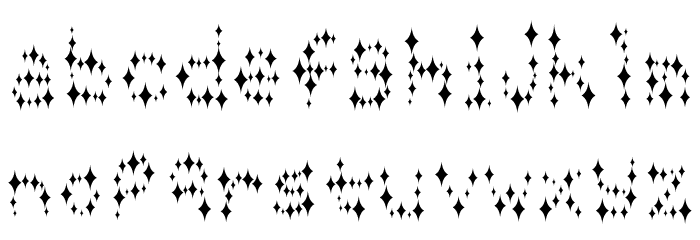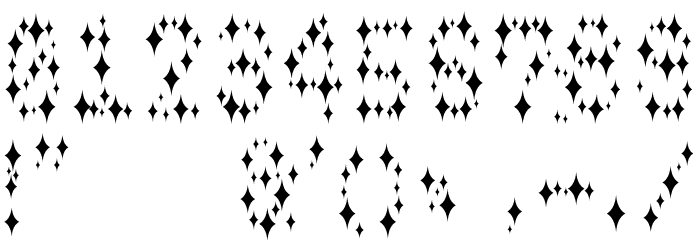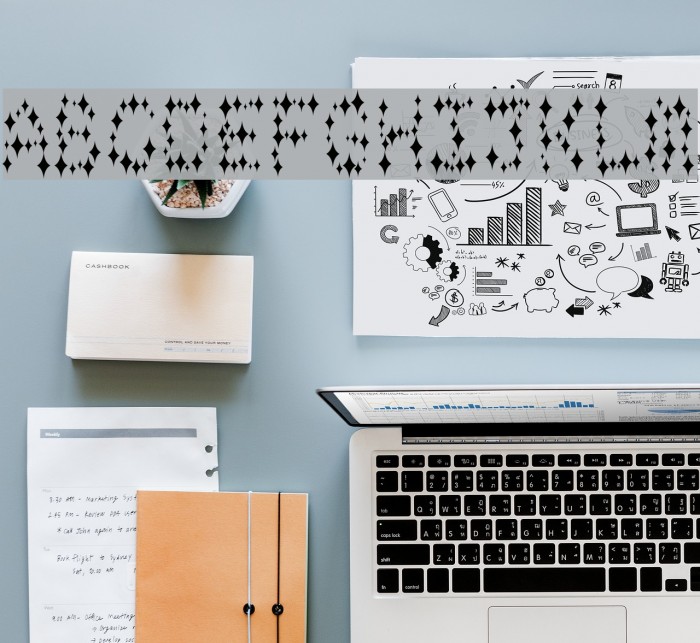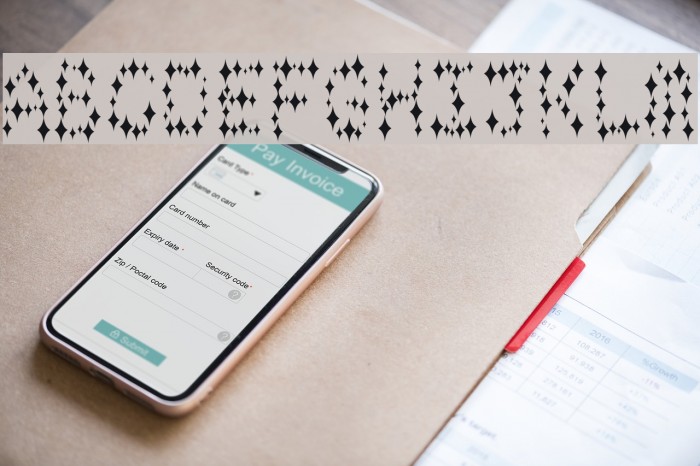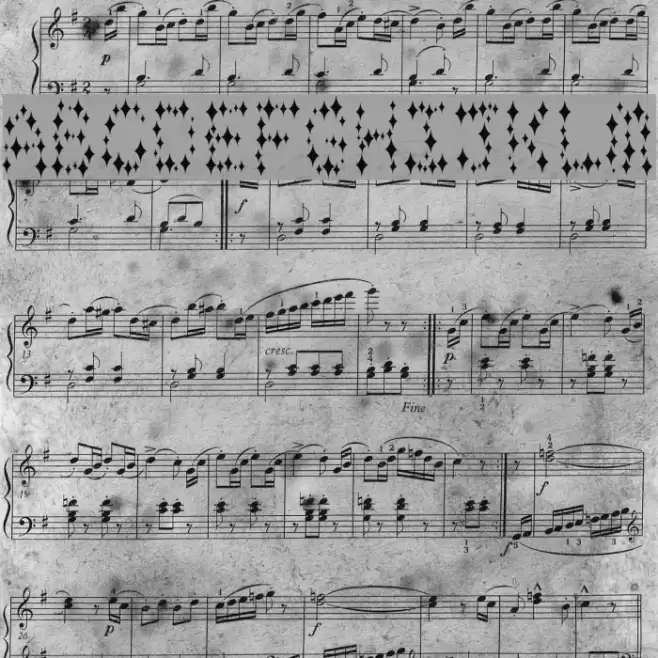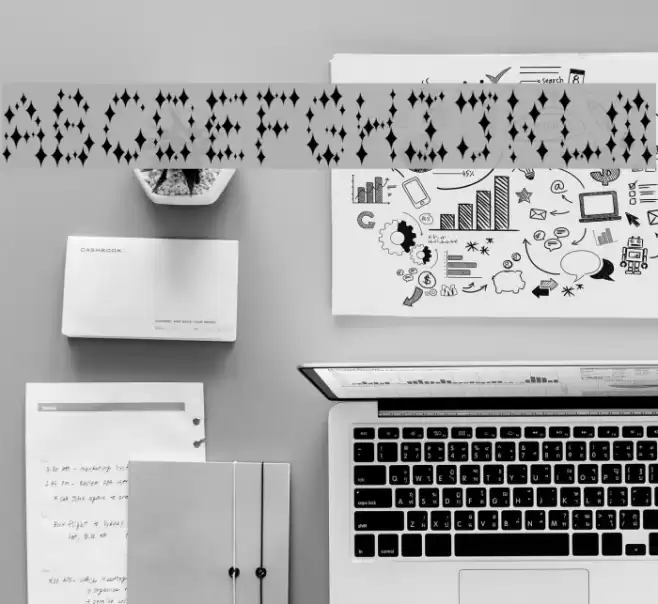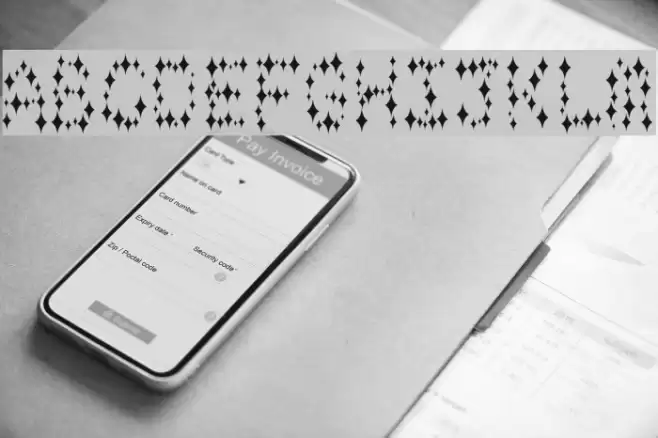
trattorian REG Font
This font features a unique and decorative style, characterized by its use of star-like shapes to form each letter and number. The design is playful and eye-catching, with each character composed of multiple diamond and star shapes that create a visually striking pattern. The font maintains a consistent structure across both uppercase and lowercase letters, as well as numbers and special characters, ensuring readability despite its intricate design. The overall appearance is bold and dynamic, making it suitable for creative and artistic projects that require a standout typeface.
A decorative font with star-shaped patterns forming each character.
- Proposed Projects: Ideal for party invitations, festive event posters, children's book covers, and any project needing a whimsical touch.